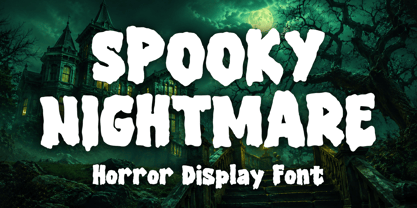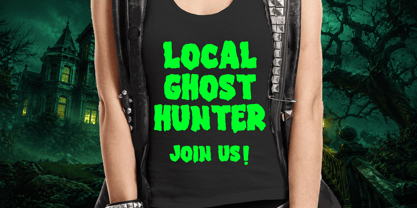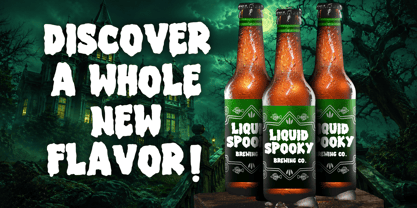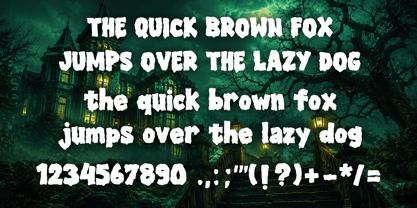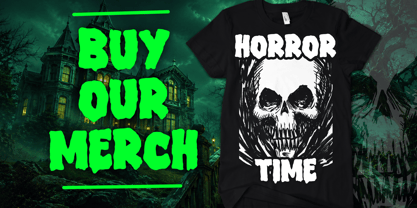
Spooky Nightmare
The Spooky Nightmare Font Family was designed by Gabriel Valentinus and published by Mvmet. Spooky Nightmare contains 1 styles. More about this family
Imbued with an eerie charm, Spooky Nightmare unfolds as a captivating horror-themed display font, deeply rooted in classic spooky cartoons, terror-inducing bands, and chilling movies. While it perfectly resonates with the spirit of Halloween, its versatile flair extends its application across a wide range of creative fields, making it a year-round choice. This font seamlessly integrates into apparel like t-shirts, diverse book designs, greeting cards, playful stickers, and engaging posters and banners. Leverage the uniquely haunting yet playful aesthetic of Spooky Nightmare to unlock a world of design possibilities that are as exciting as they are distinctive. Its spirited character promises to infuse your designs with an enjoyable, cool, and quirky vibe, perfect for branding, web design, and editorial projects.